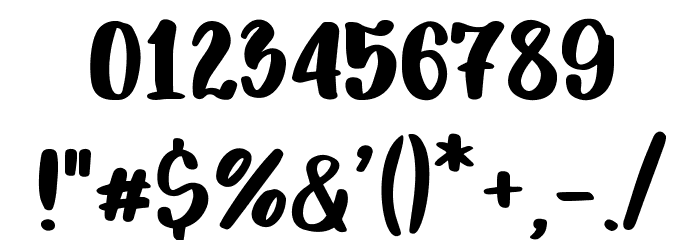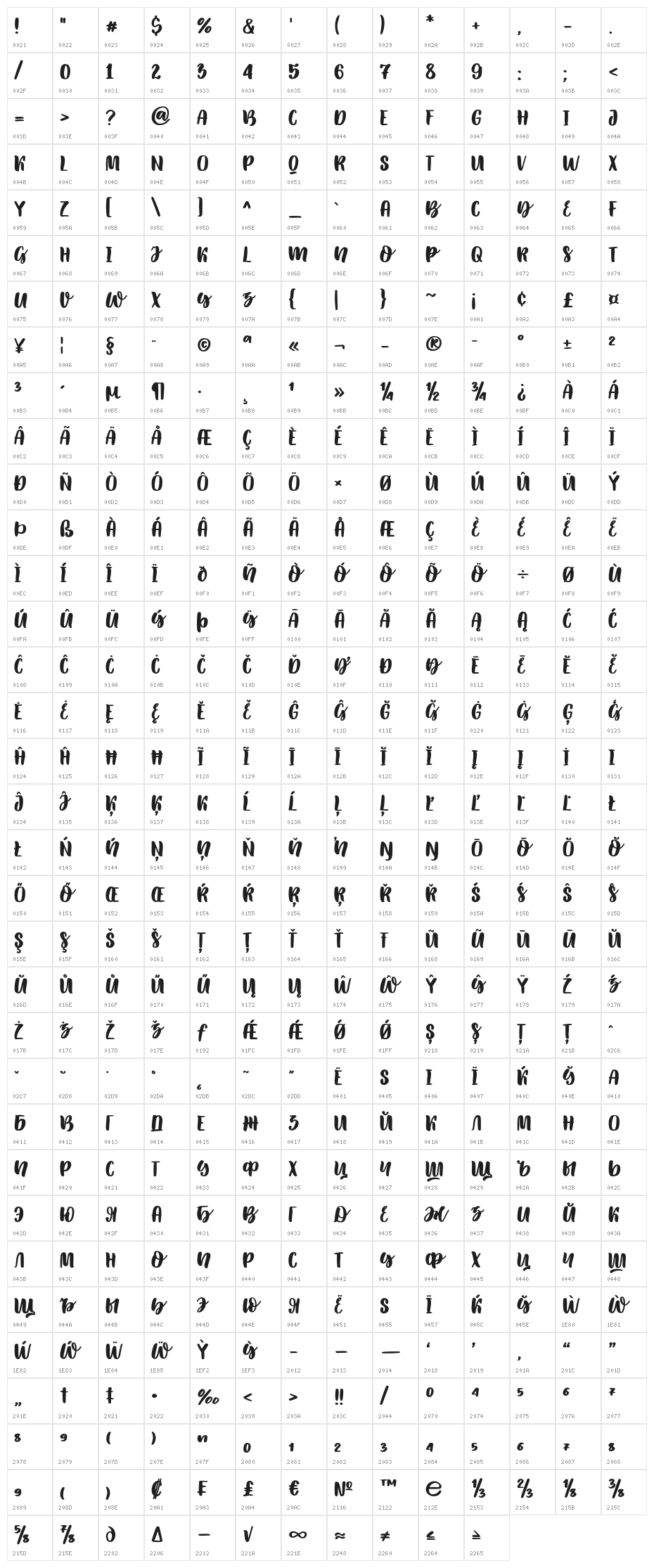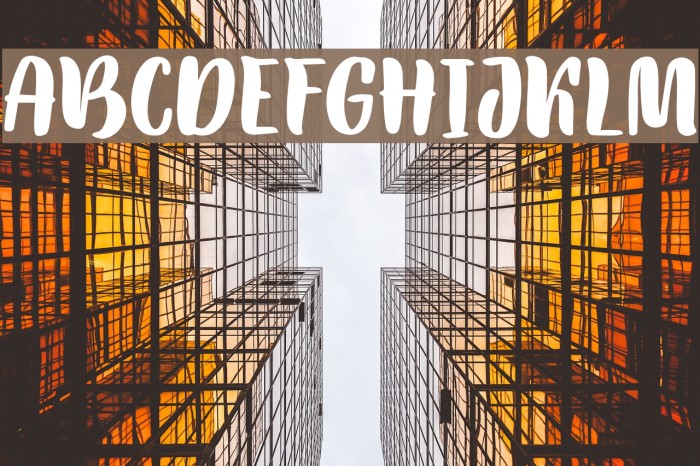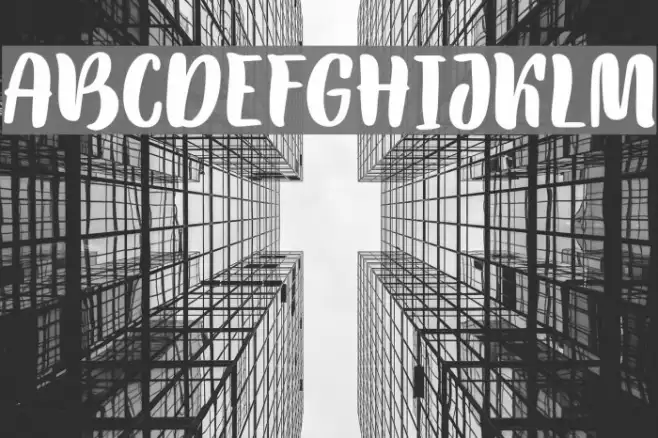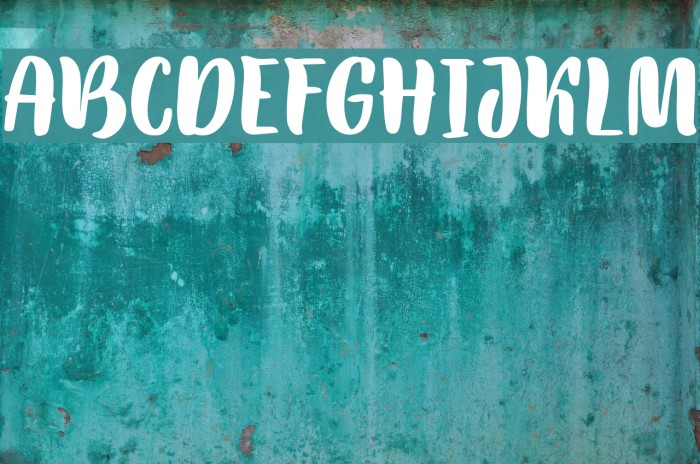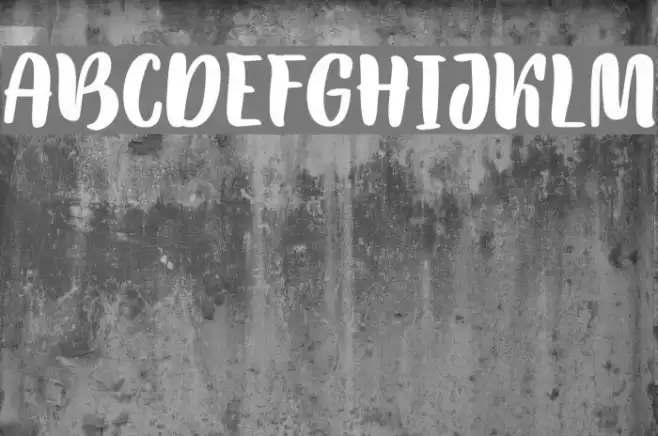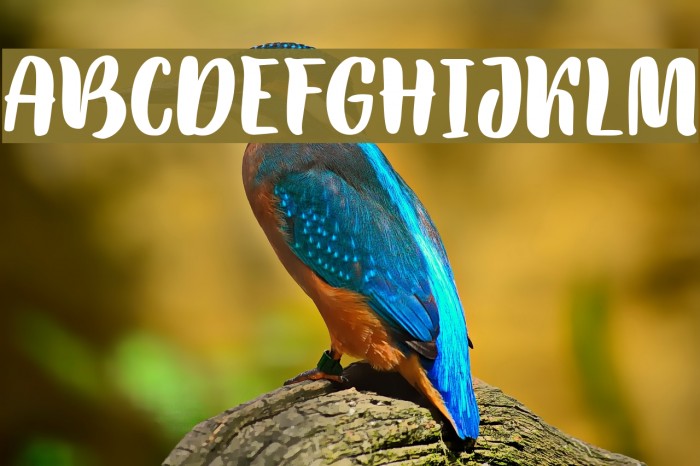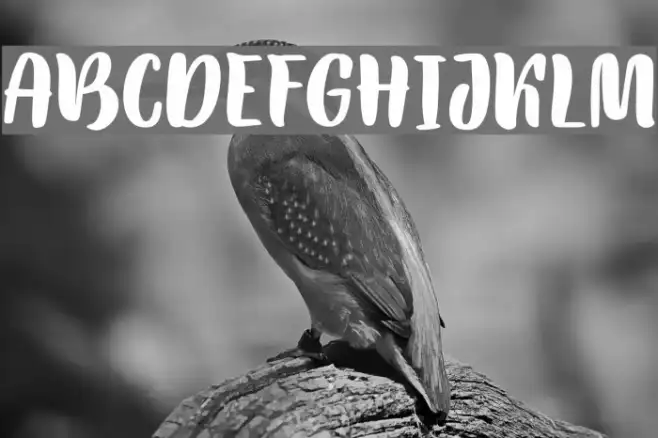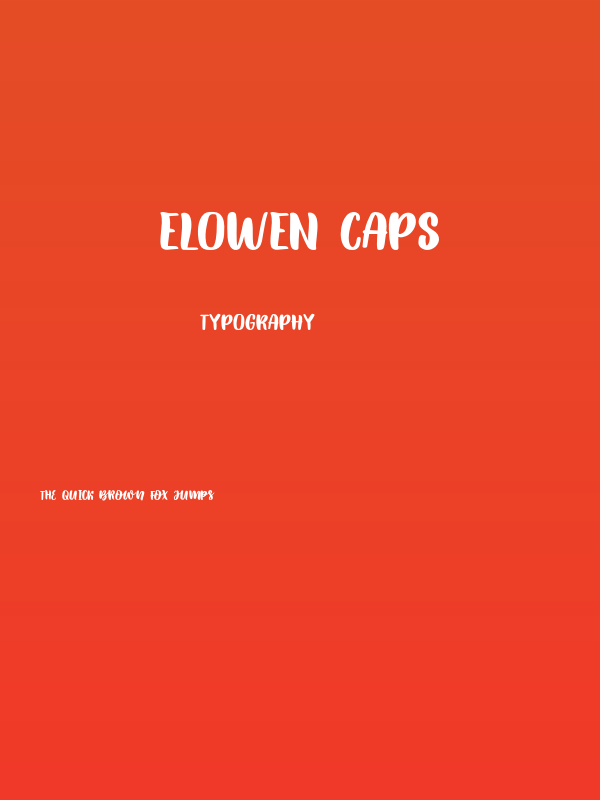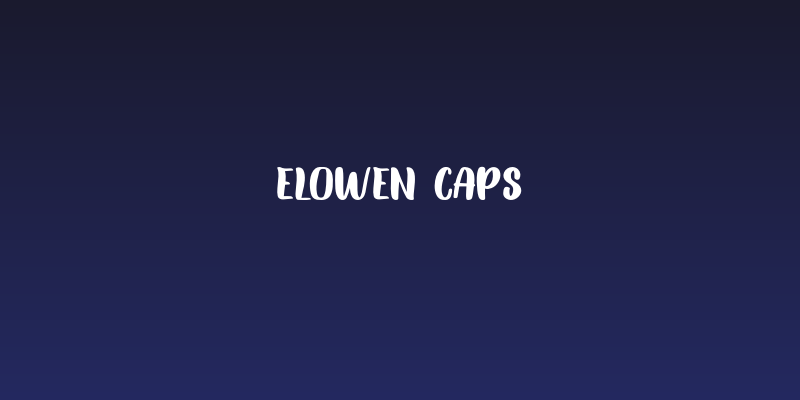
Elowen Caps Font
Elowen Caps Description
This font features a bold and expressive script style with a hand-drawn appearance. The characters are fluid and connected, giving a sense of movement and energy. The uppercase letters are particularly striking, with a playful yet elegant design. The lowercase letters maintain the same lively style, creating a cohesive look across the alphabet. The numerals and special characters are consistent with the overall aesthetic, making this font versatile for various uses. The thick strokes and rounded edges contribute to its friendly and approachable feel.
| Proposed Projects | Ideal for branding, invitations, greeting cards, and social media graphics. |